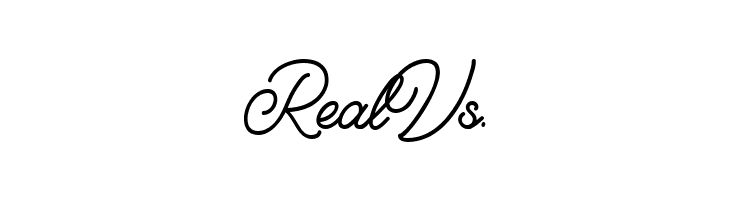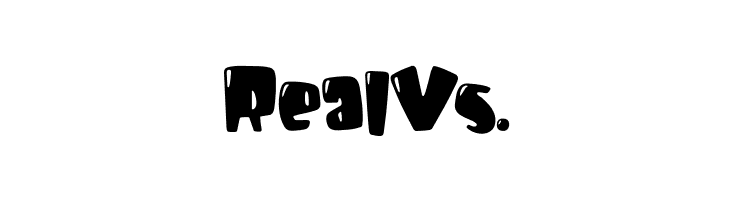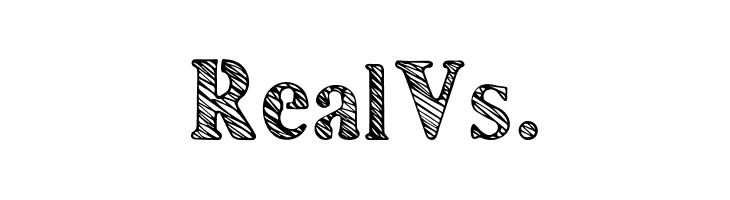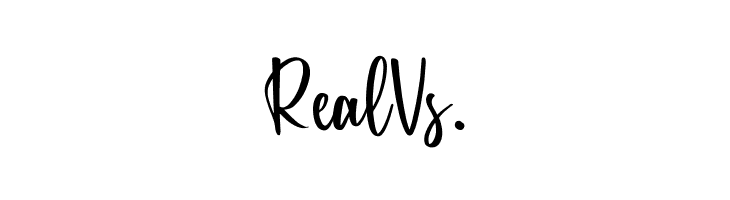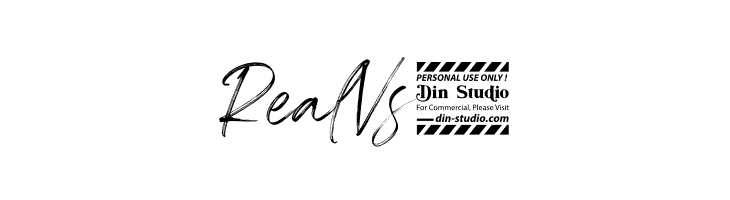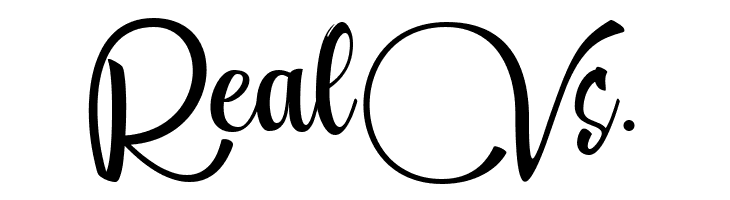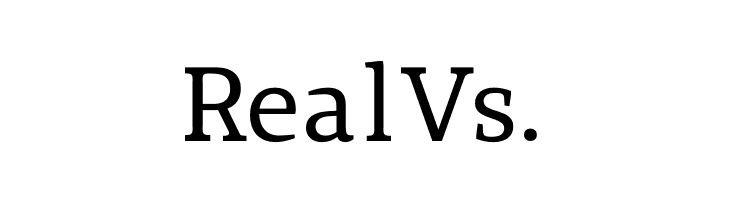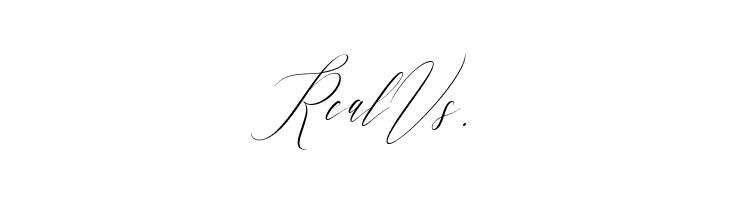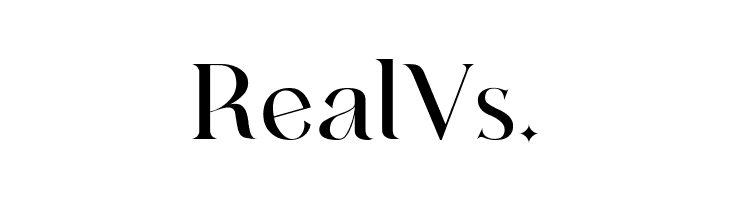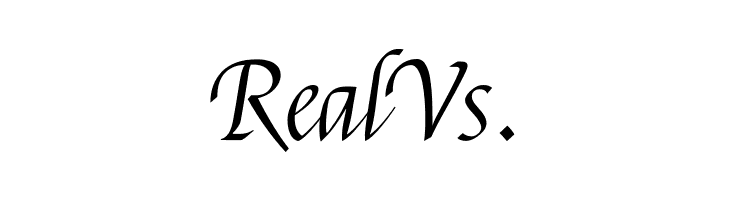
An elegant script font with flowing, cursive letterforms and decorative flourishes.
A bold, playful font with thick, uneven strokes and a hand-drawn feel.
A dynamic handwritten font with fluid strokes and an artistic brush-like texture.
A playful, bold font with rounded, cartoonish characters.
A bold, textured font with a hand-crafted, artistic style.
A playful, hand-drawn font with bold, uneven strokes and a whimsical feel.
A lively handwritten font with expressive and dynamic strokes.
An elegant and flowing script font with ornate, cursive letterforms.
A playful and elegant cursive font with flowing, interconnected letters.
An elegant, flowing script font with thin, graceful strokes.
An elegant script font with flowing, interconnected strokes and high contrast.
A playful, foot-themed font with bold, rounded characters and a whimsical style.
A bold, decorative serif font with a hatched texture and classic yet modern appeal.
A hand-drawn, sketch-style font with bold, textured characters.
A geometric, angular font with a runic, ancient script style.
A playful, bold font with a hand-drawn, friendly appearance.
A classic serif font with elegant and balanced proportions.
A lively and playful script font with dynamic loops and swirls.
A lively and playful script font with interconnected strokes and a whimsical touch.
A bold, handwritten-style font with rounded, playful characters.
A bold, playful sans-serif font with a handwritten style.
A bold, hand-drawn font with a rough, graffiti-like style.
A cursive script font with elegant loops and swashes, offering sophistication and grace.
An ornate and elegant Arabic script with intricate design elements.
An elegant and flowing script font with a graceful slant.
An elegant, flowing script font with smooth, cursive strokes.
A refined, cursive script font with elegant, flowing lines.
A dynamic, expressive handwritten font with fluid, irregular strokes.
A high-contrast, elegant serif font with sharp serifs and refined curves.
An elegant italic font with smooth, flowing lines and moderate contrast.
A dynamic, expressive handwritten font with fluid, cursive strokes.
An elegant script font with flowing, interconnected letters and artistic flourishes.